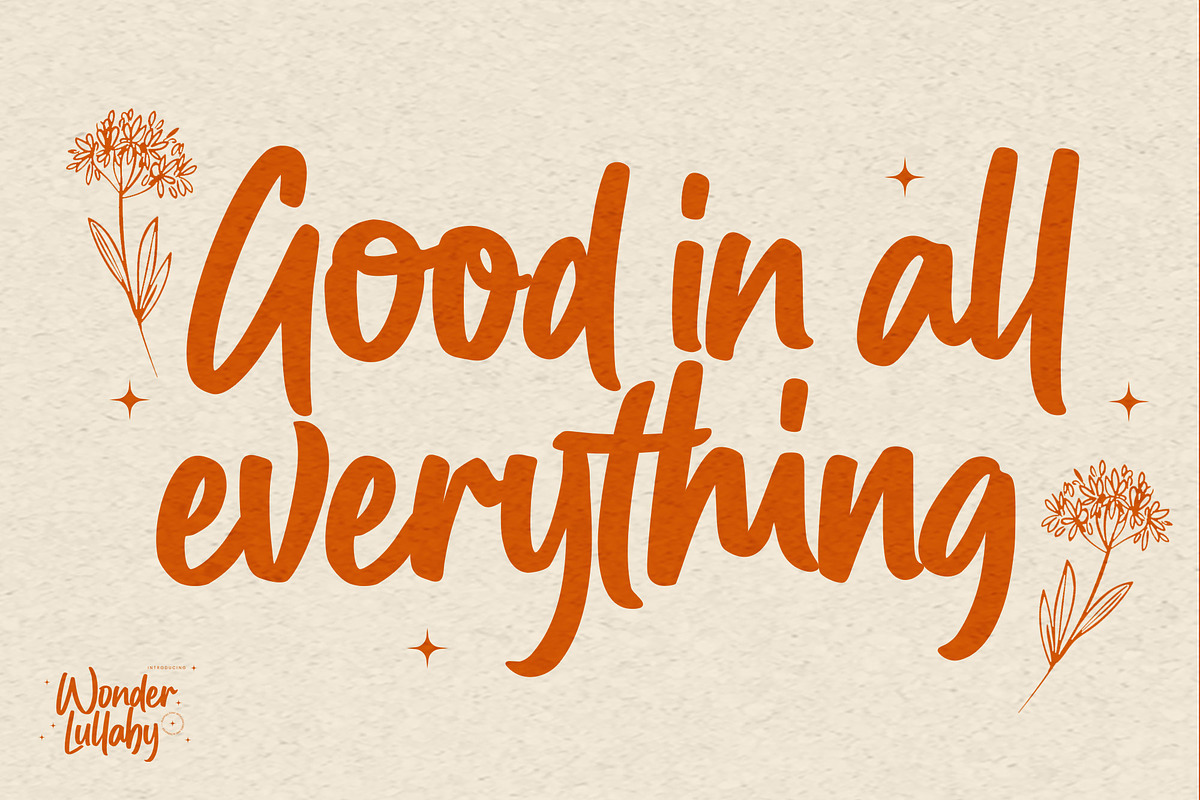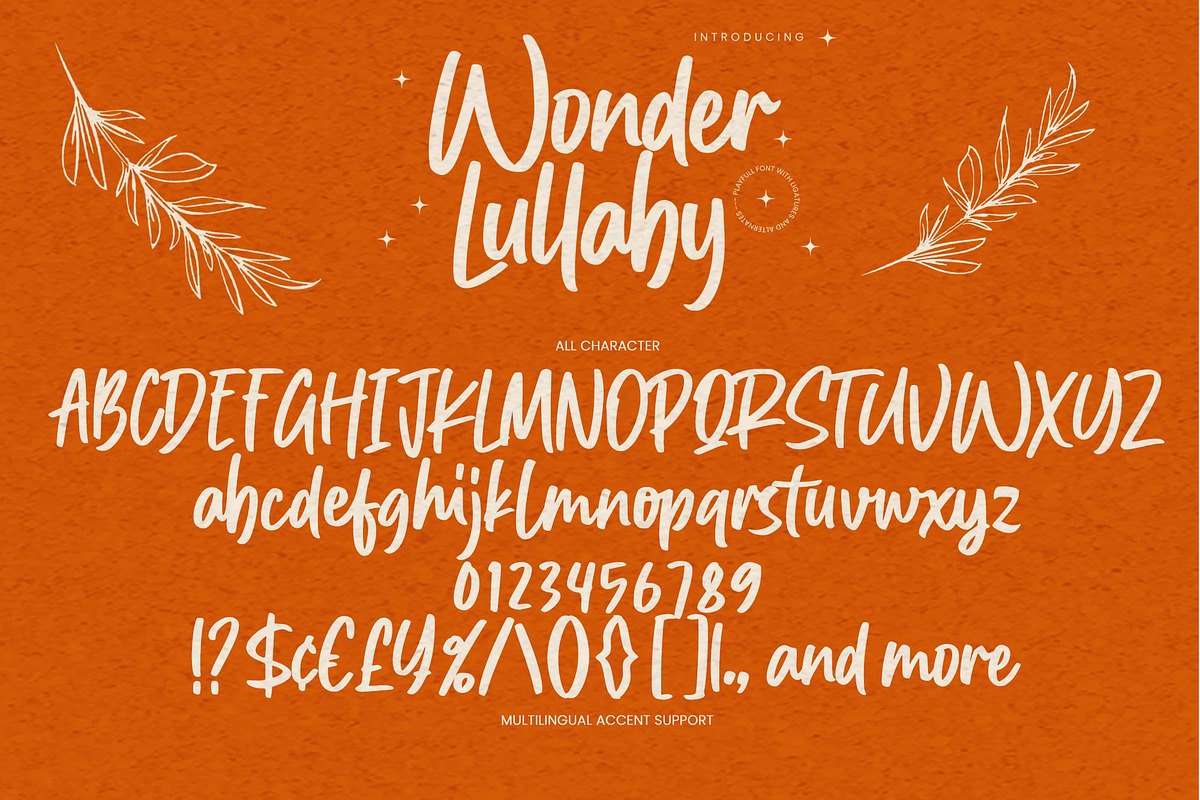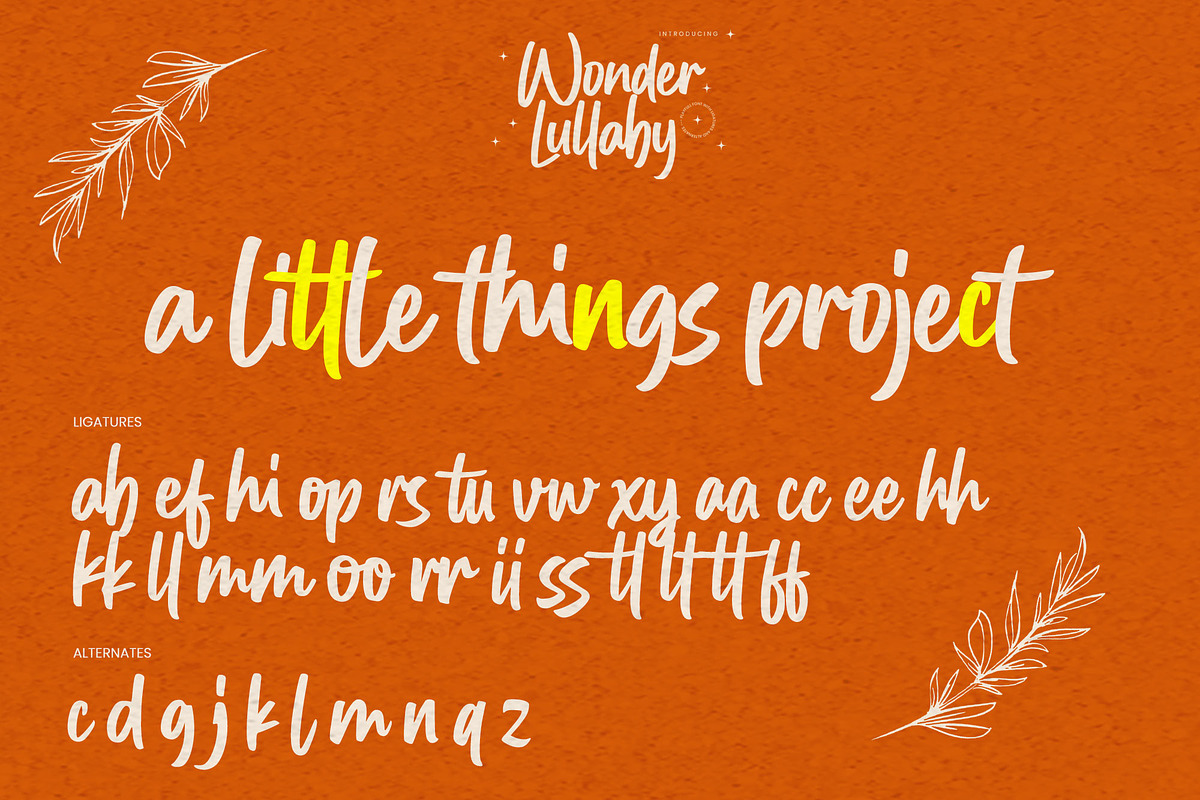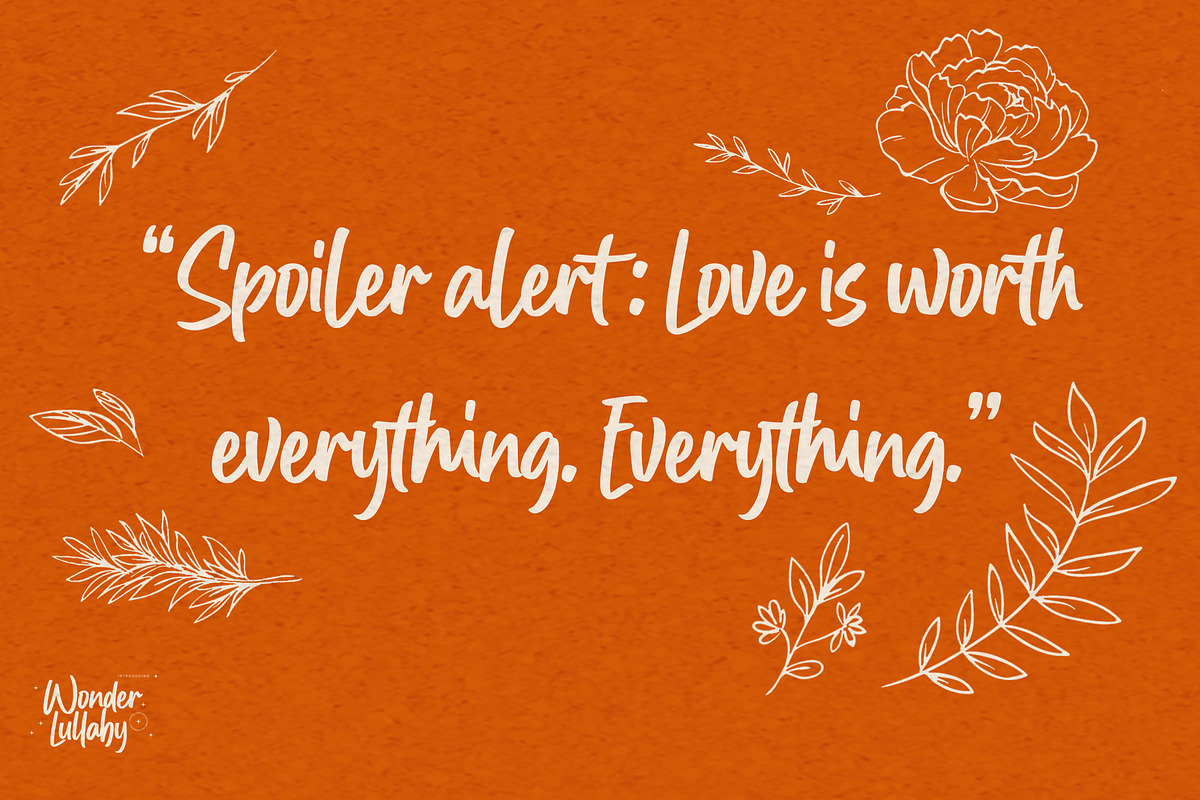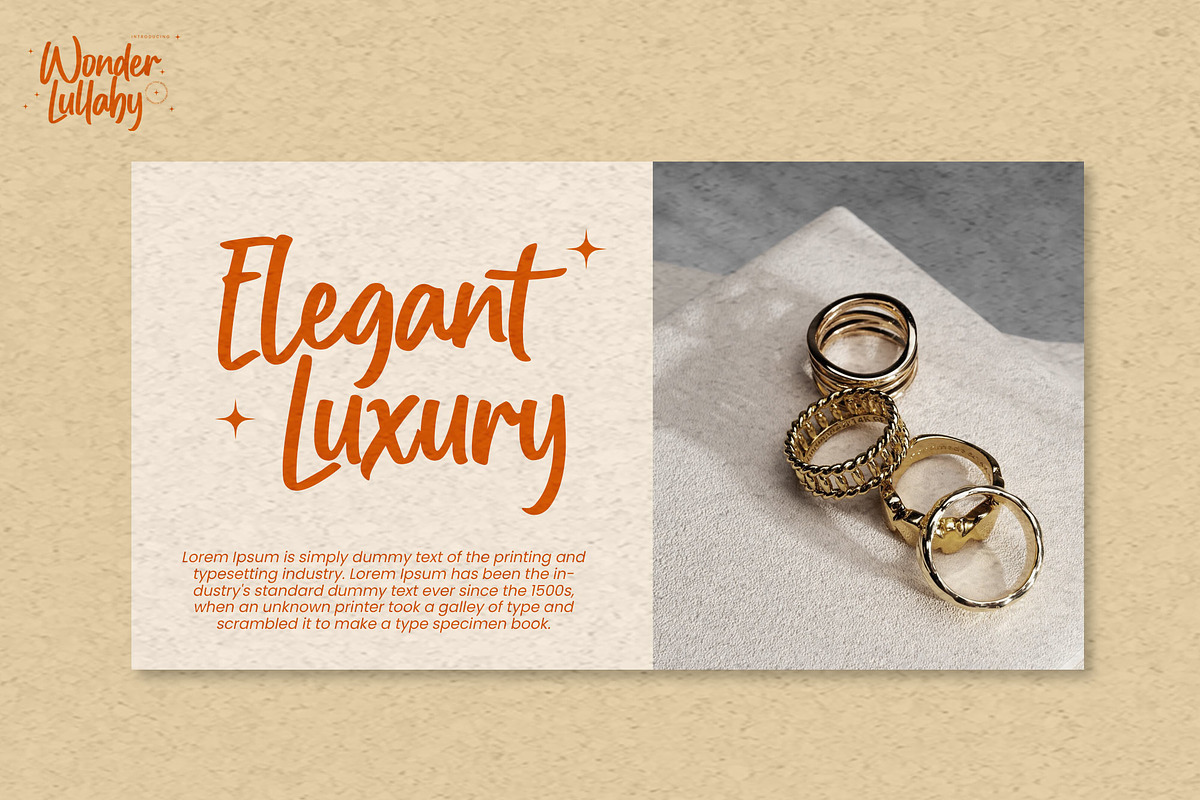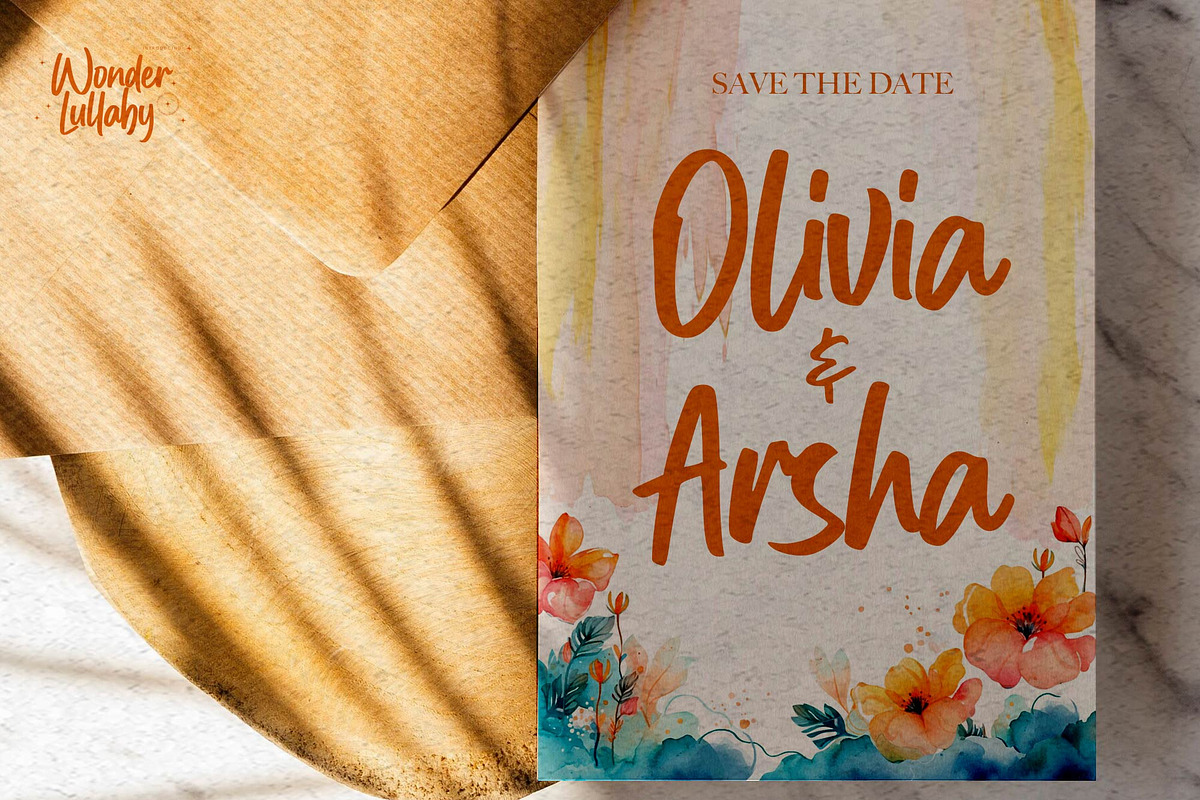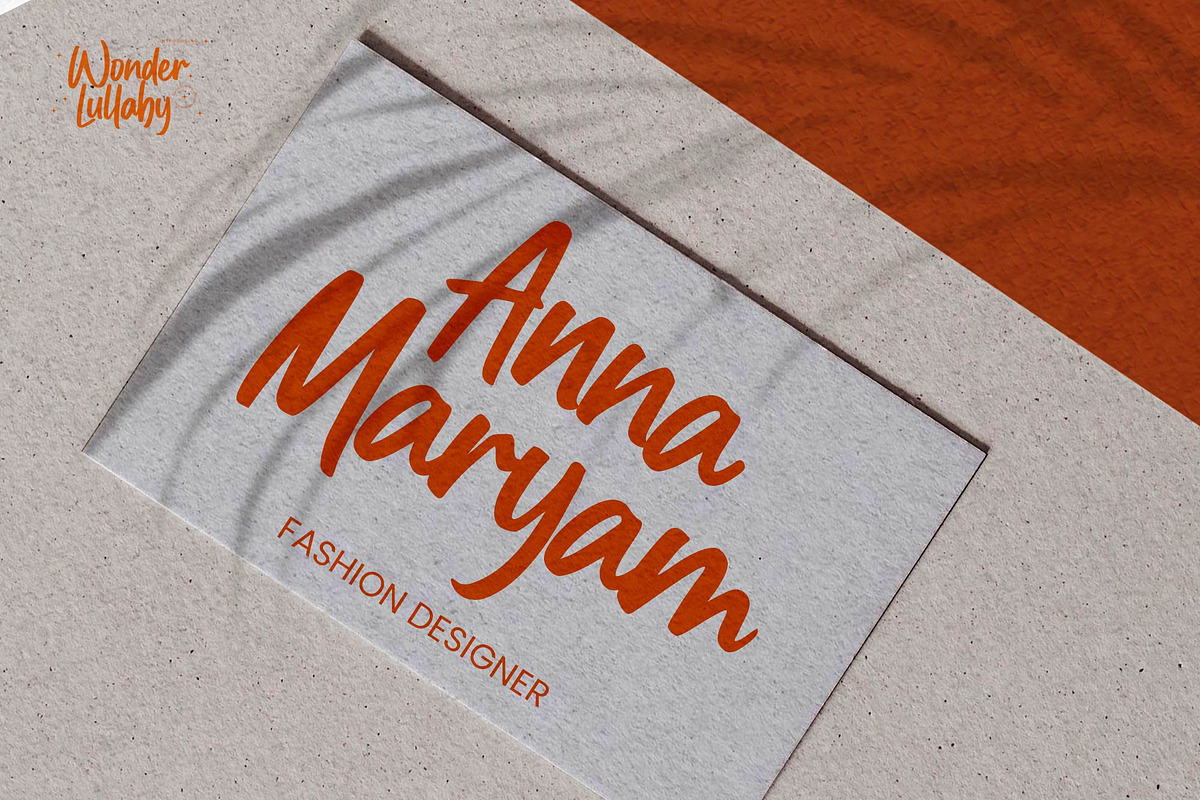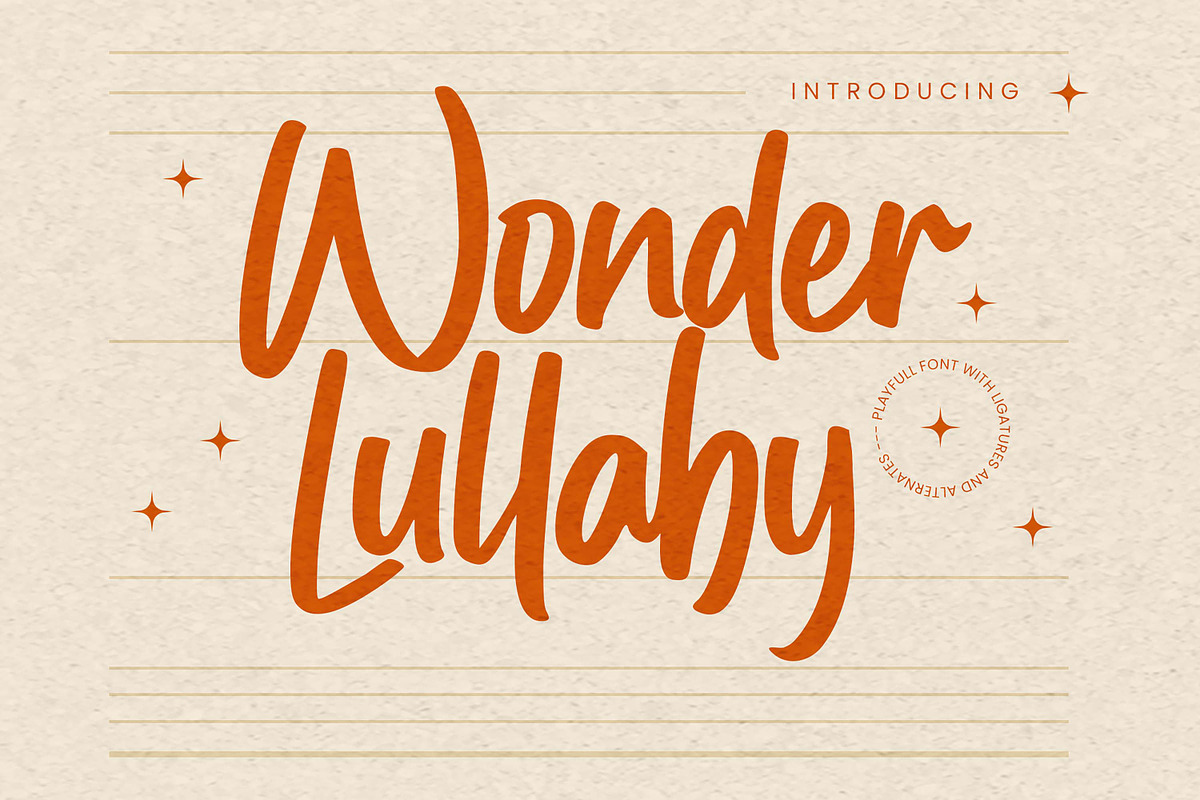
Wonder Lullaby – Playful Font
Hello Everyone, introduce our new product Font Wonder Lullaby This Is Playfull Font with Ligatures and Alternates style. This font Wonder Lullaby is great for your next creative project such as logos, printed quotes, invitations, cards, product packaging, headers, Logotype, Letterhead, Poster, Design this font is great for your creative projects such as watermark on photography, and perfect for logos & branding, invitation,advertisements,product designs, stationery, wedding designs,label ,product packaging, special events or anything that need handwritting taste. That is has charming, authentic and relaxed characteristic more natural look to your text.